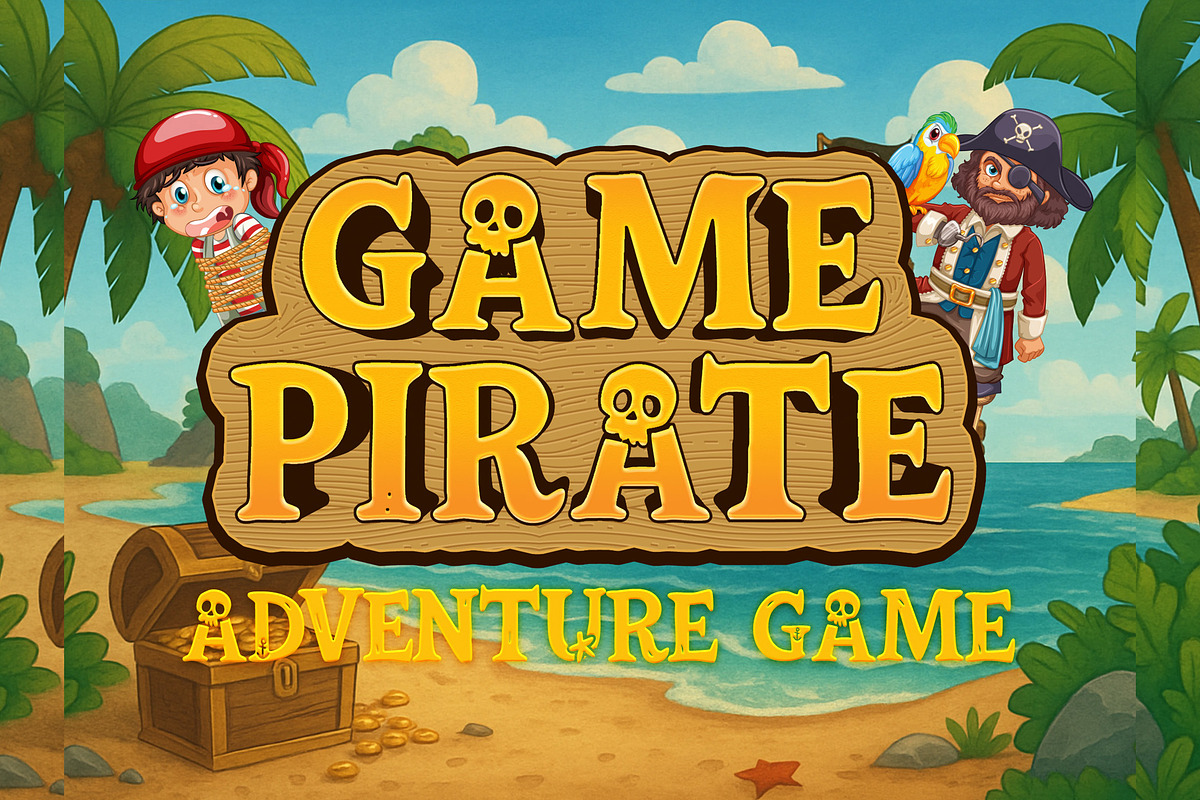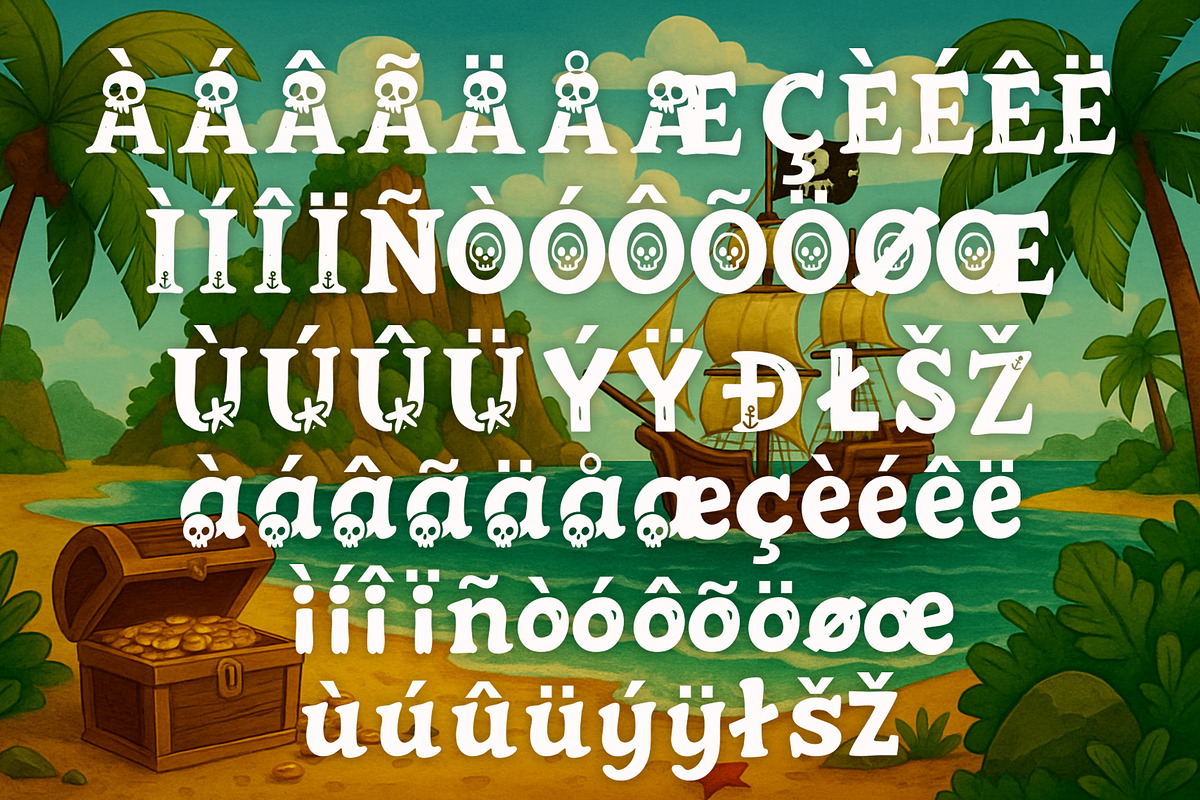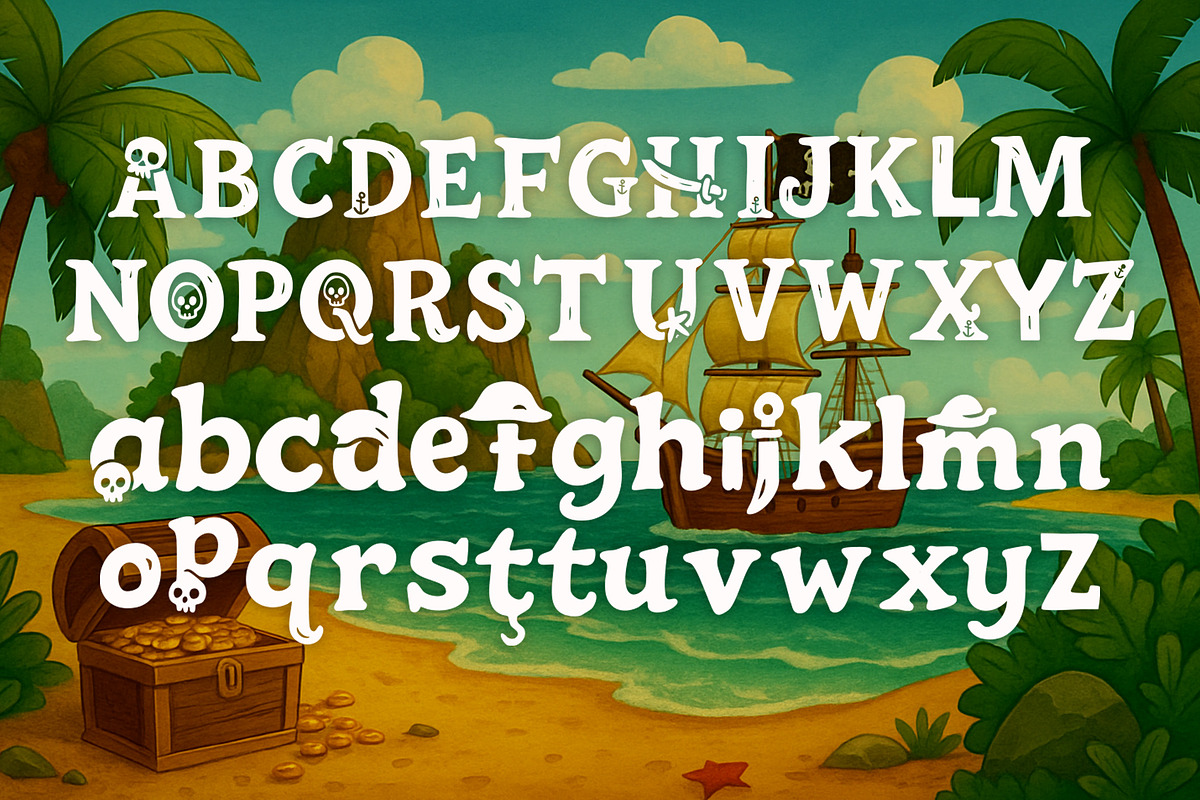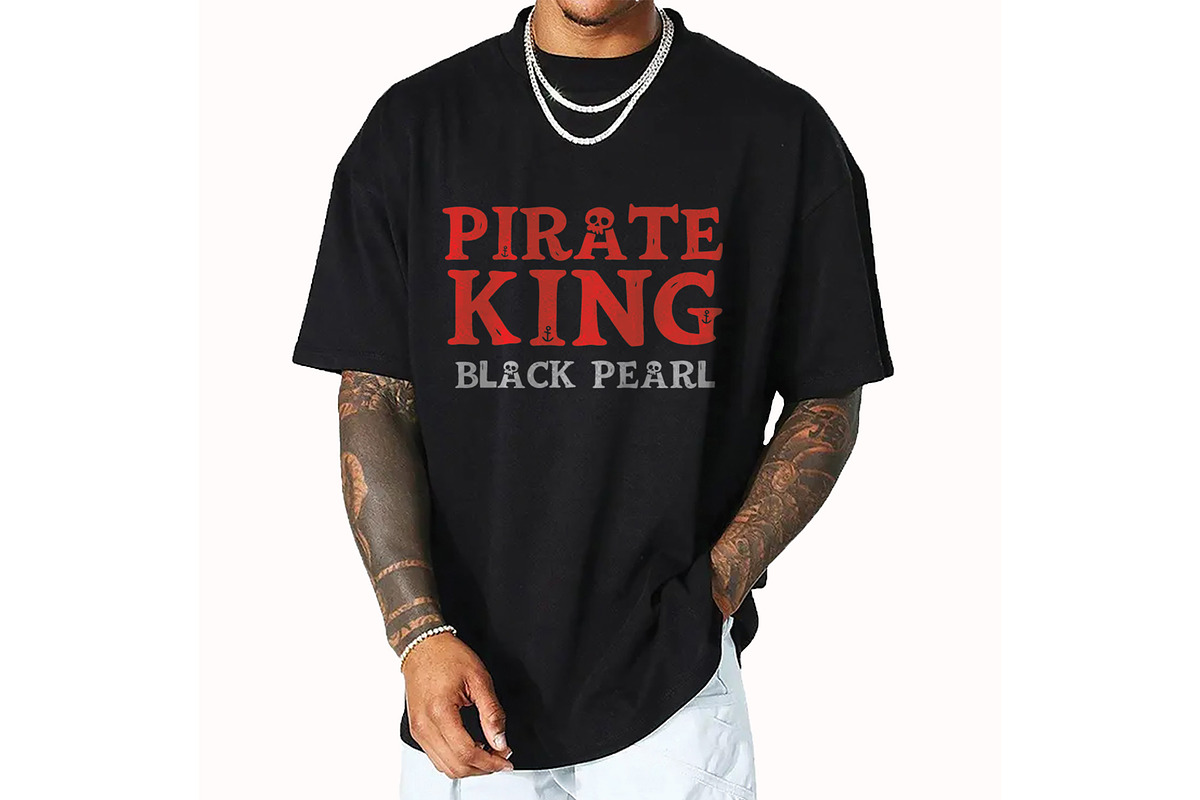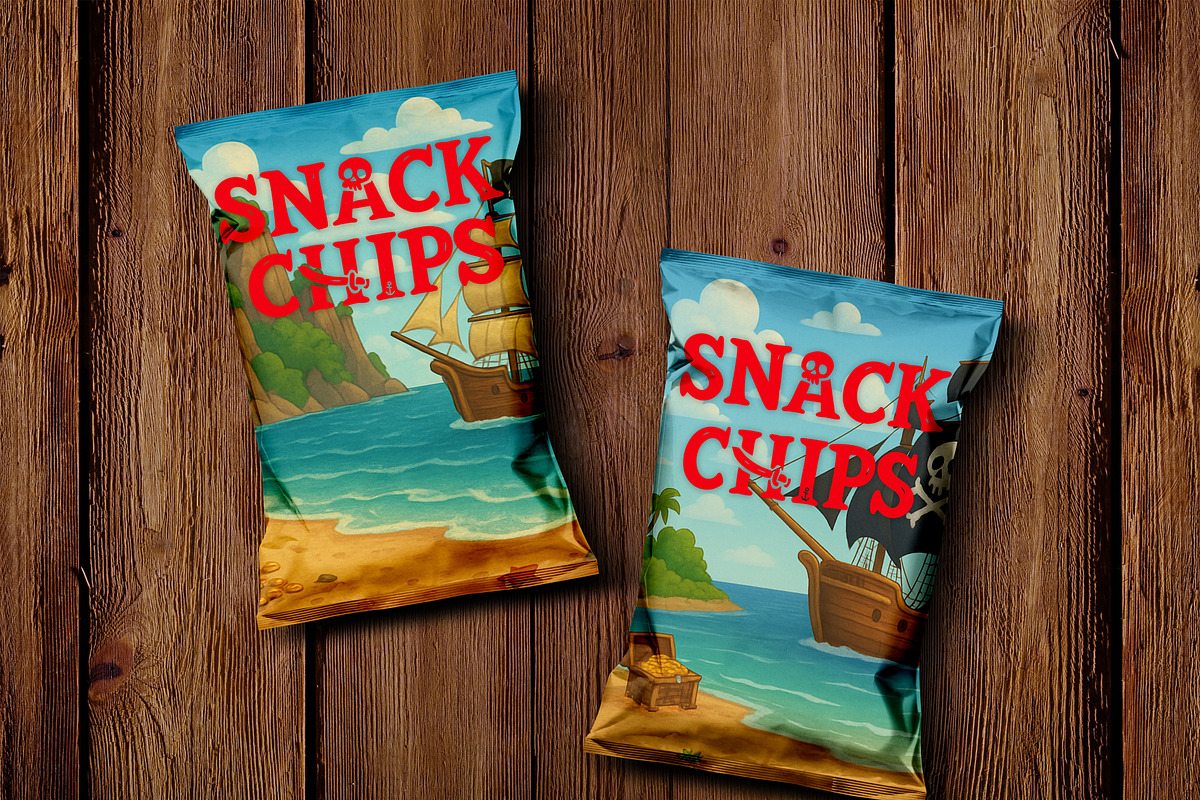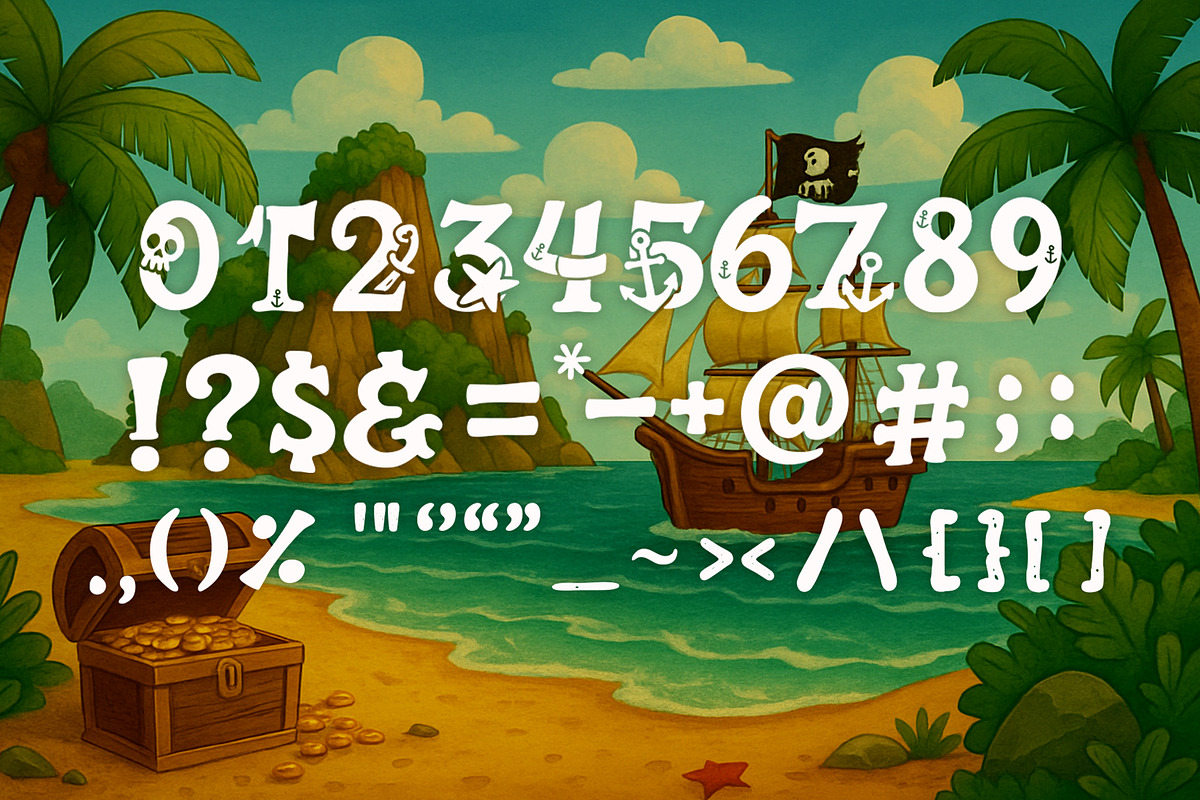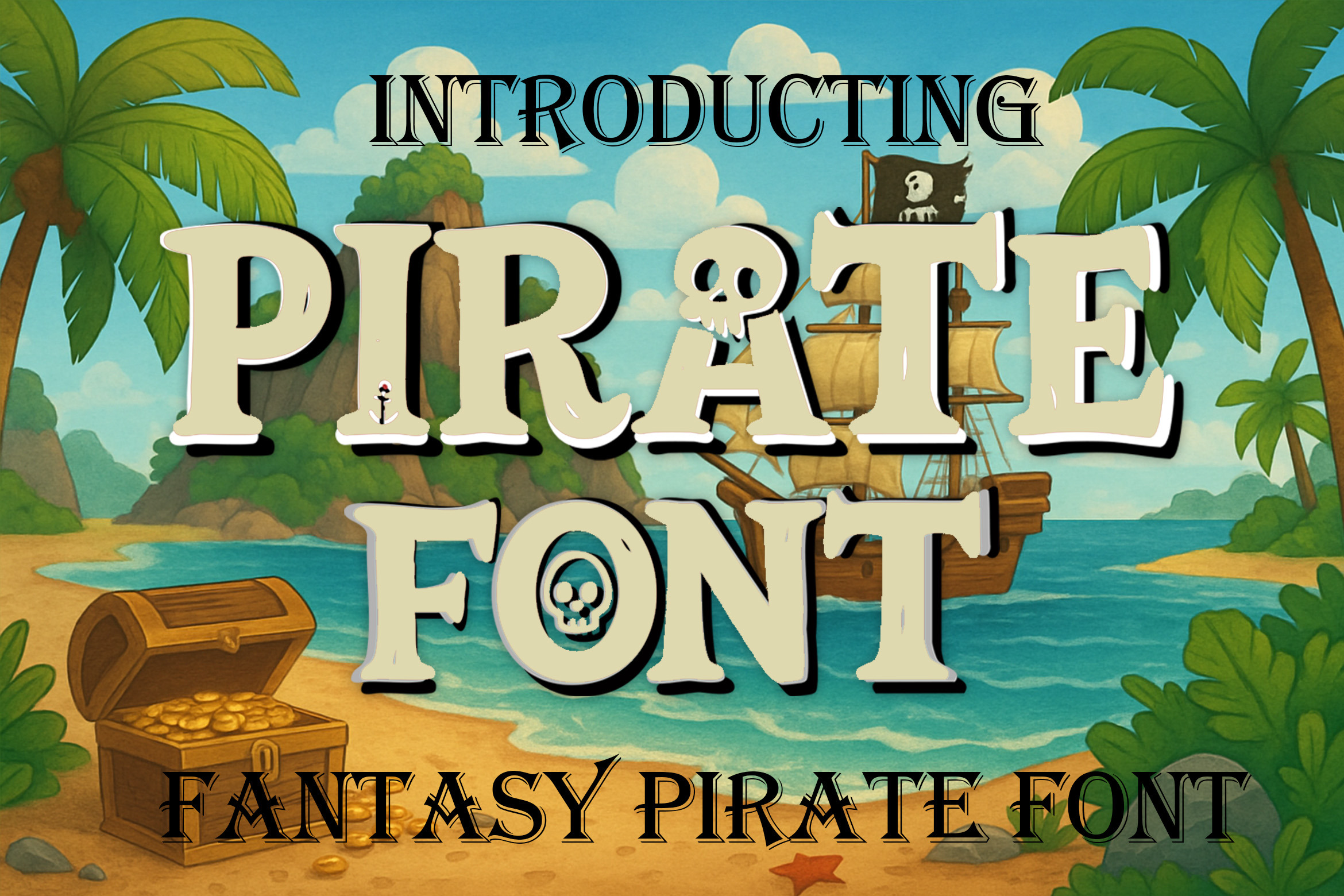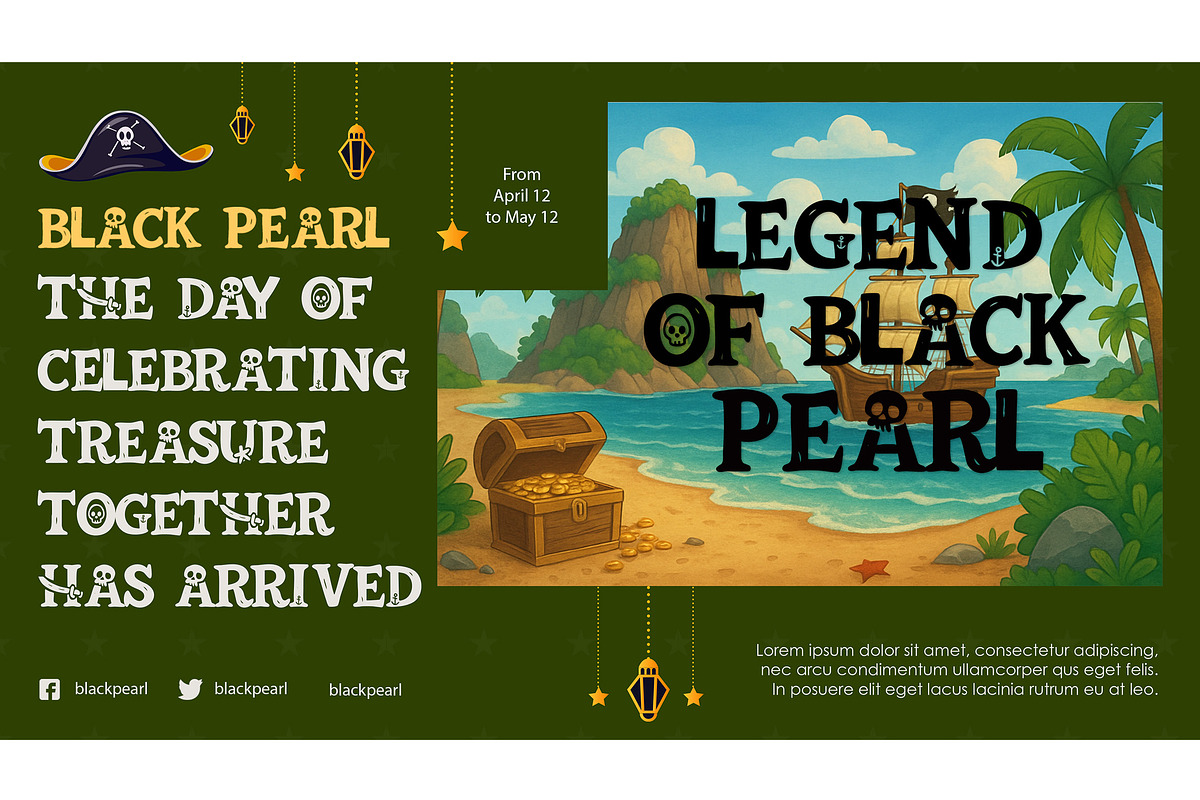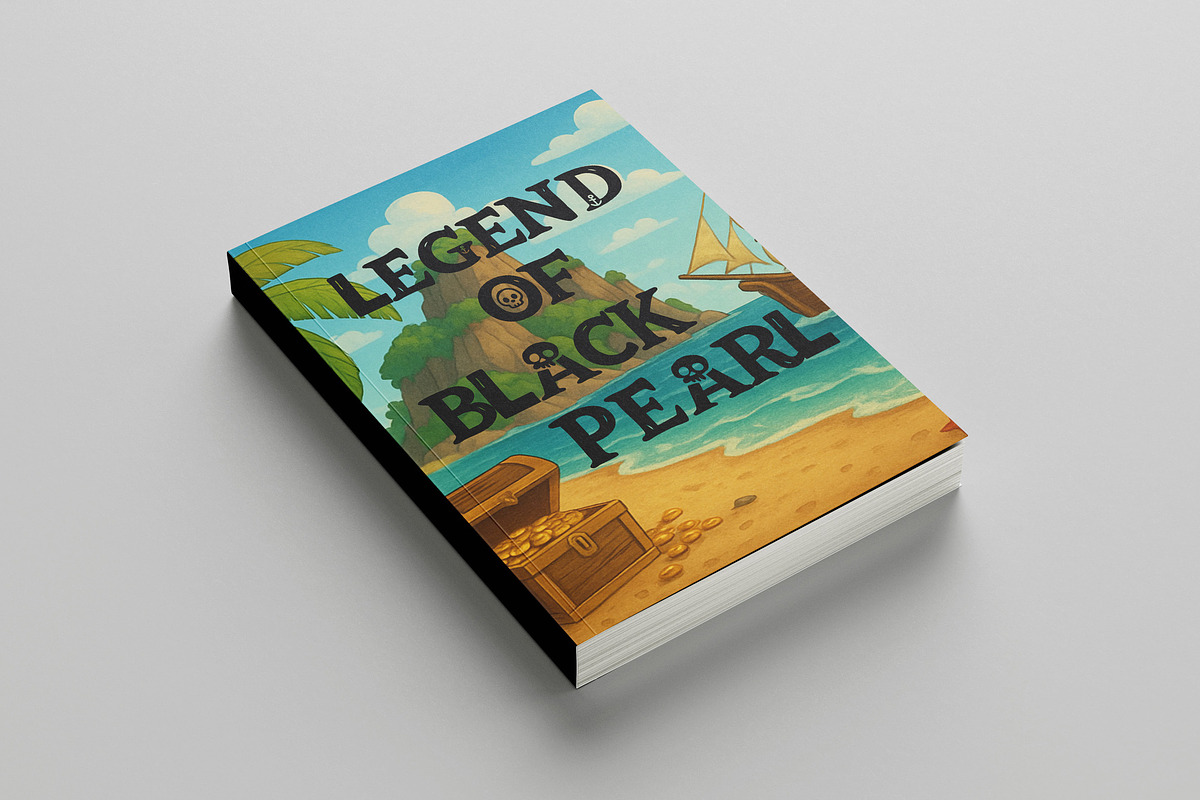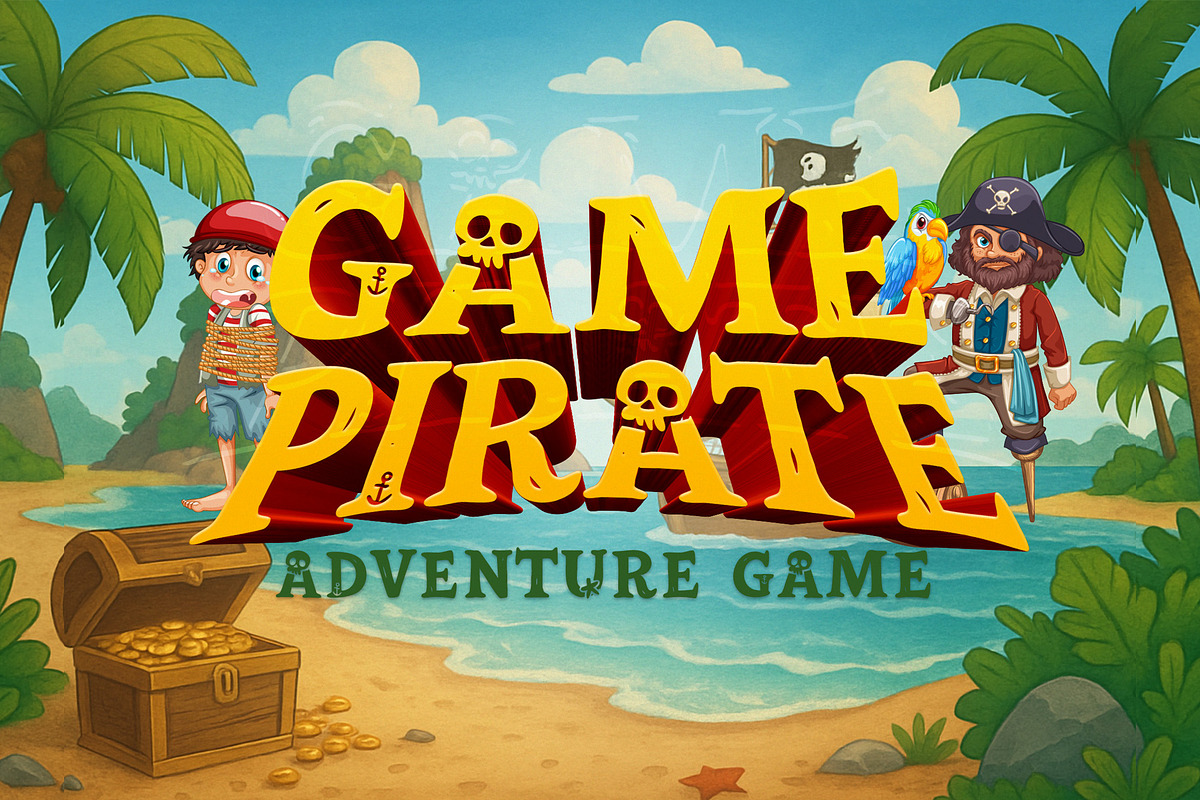
Pirate Kid Font
A fantasy pirate-style decorative font specially designed for children's projects. Perfect for book titles, adventure posters, pirate party invitations, and creative branding. This typeface blends excitement, imagination, and exploration with a child-friendly cartoon and illustrative touch.